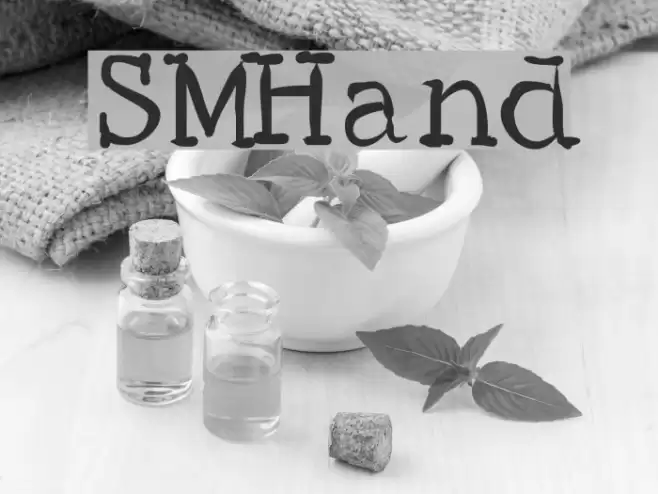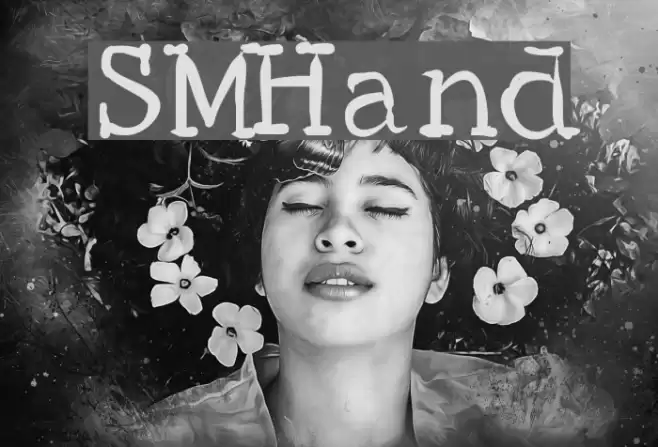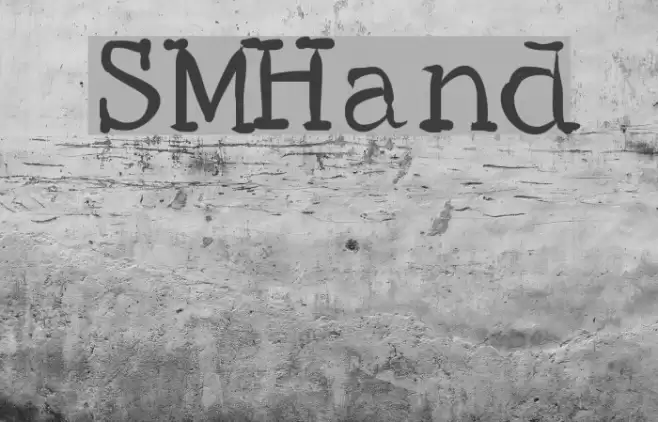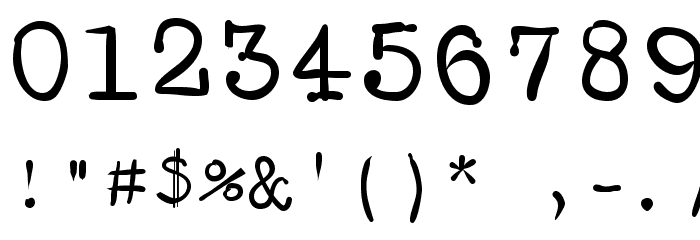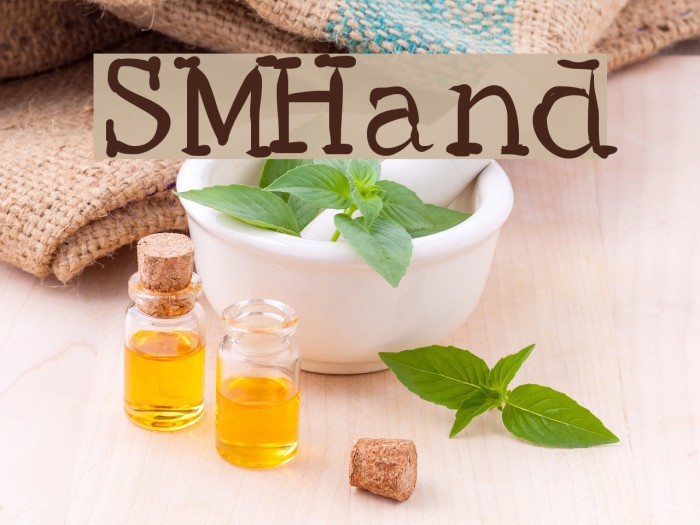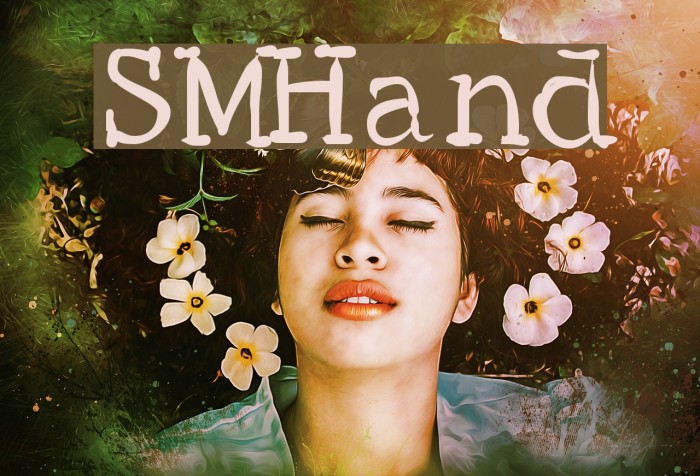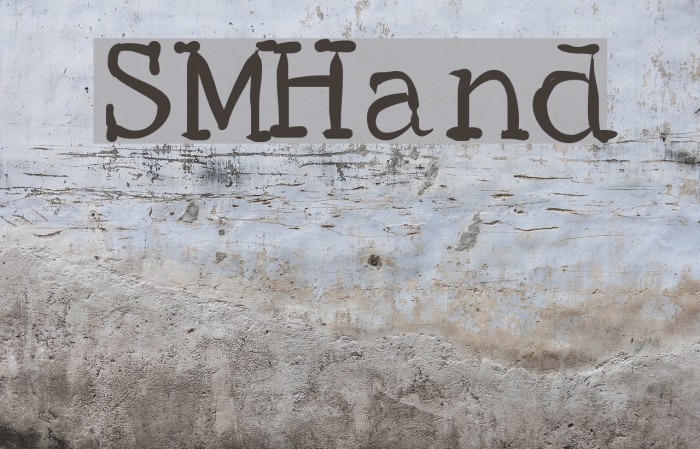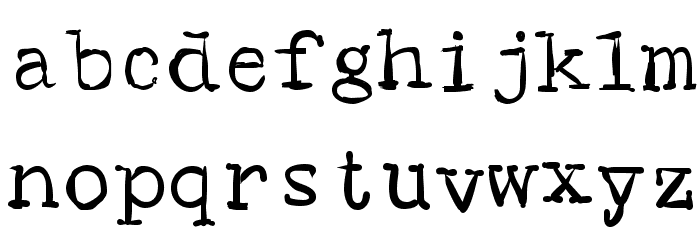
SMHand
This font features a playful and slightly distressed appearance, reminiscent of typewriter text with a modern twist. The characters are bold and have a rough, uneven texture that adds a handcrafted feel. The uppercase letters are slightly larger and more pronounced, while the lowercase letters maintain a consistent style with subtle variations in stroke width. Numbers and special characters follow the same aesthetic, ensuring a cohesive look across all text. The font's unique style makes it stand out, offering a blend of vintage charm and contemporary design.
A bold, distressed typewriter-style font with a modern, handcrafted feel.
- Proposed Projects: Ideal for projects requiring a vintage or retro look, such as posters, book covers, or branding materials that aim to convey a sense of nostalgia or creativity.
- Overall Style: Vintage
- Use Case: Headlines, Logos, Posters